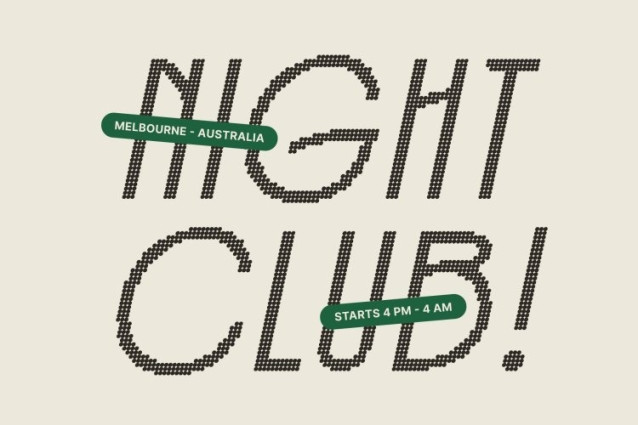
Lovnie Disco Font
Lovnie Disco Font This is an Art Deco–inspired sans serif font that combines refined elegance with a subtle disco spirit. Its sleek lines and geometric letterforms echo the glamour and sophistication of the Art Deco era, while rhythmic proportions and smooth curves add a sense of movement like classic elegance illuminated by shimmering lights.
Versatile, Stylish, and Expressive
Designed to adapt beautifully across editorial layouts, magazines, and branding, brings a stylish presence to every application. Its Art Deco details provide vintage charm, while the disco influence adds freshness and visual excitement that helps designs stand out effortlessly.
Refined Elegance with Festive Energy
This font prioritizes elegance while embracing a celebratory mood. Whether used in print or digital media, it delivers a polished, glamorous look that feels lively and engaging perfect for designs that want to feel luxurious without appearing static.
Perfect for Elegant and Vibrant Creative Projects
Ideal for magazine layouts, restaurant menus, fashion branding, event visuals, and upscale identities, blends timeless Art Deco beauty with modern disco energy. The result is a font that feels sophisticated, stylish, and always ready for the spotlight.